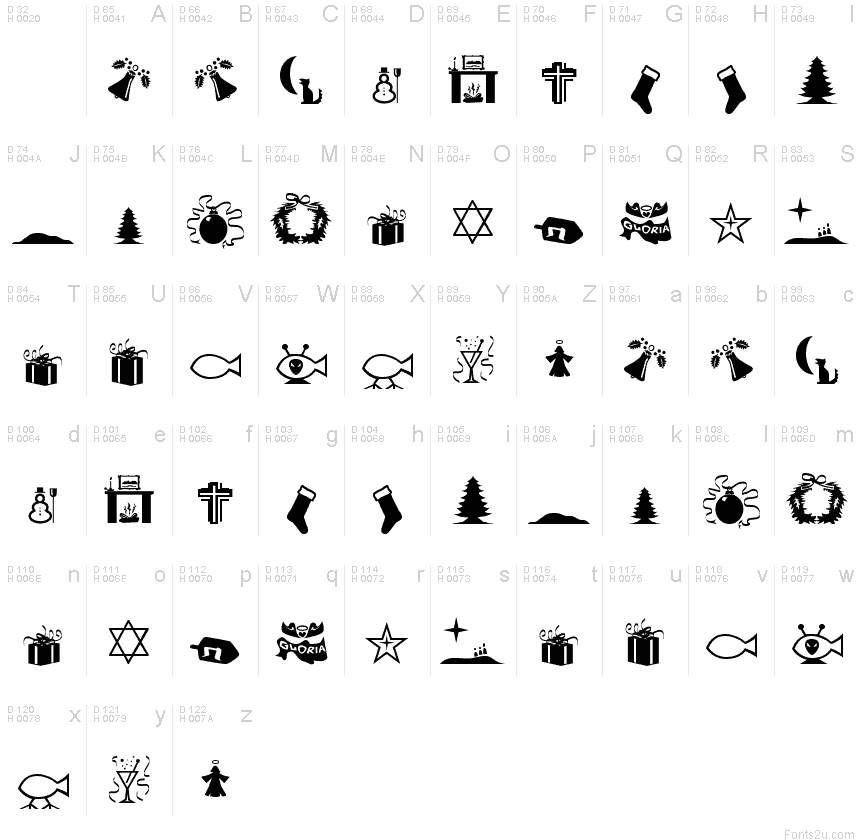
Xmas 97
Xmas 97 by RudynFluffy Entertainment is a free Christmas dingbat font built around familiar holiday emblems. The set leans into simple, chunky silhouettes - a ribbon-tied wreath, holly sprigs, a bell, a bright star, candles, and a stylized bird - so the overall mood feels homespun, cheerful, and a little like late-1990s seasonal clip art.
It fits naturally in holiday flyers, greeting cards, gift tags, party invites, and scrapbook pages, where a single icon can do the work of a headline ornament. As a free font, it also makes sense for menu accents, newsletter dividers, or quick festive badges because the shapes are bold, self-contained, and easy to drop into a layout.